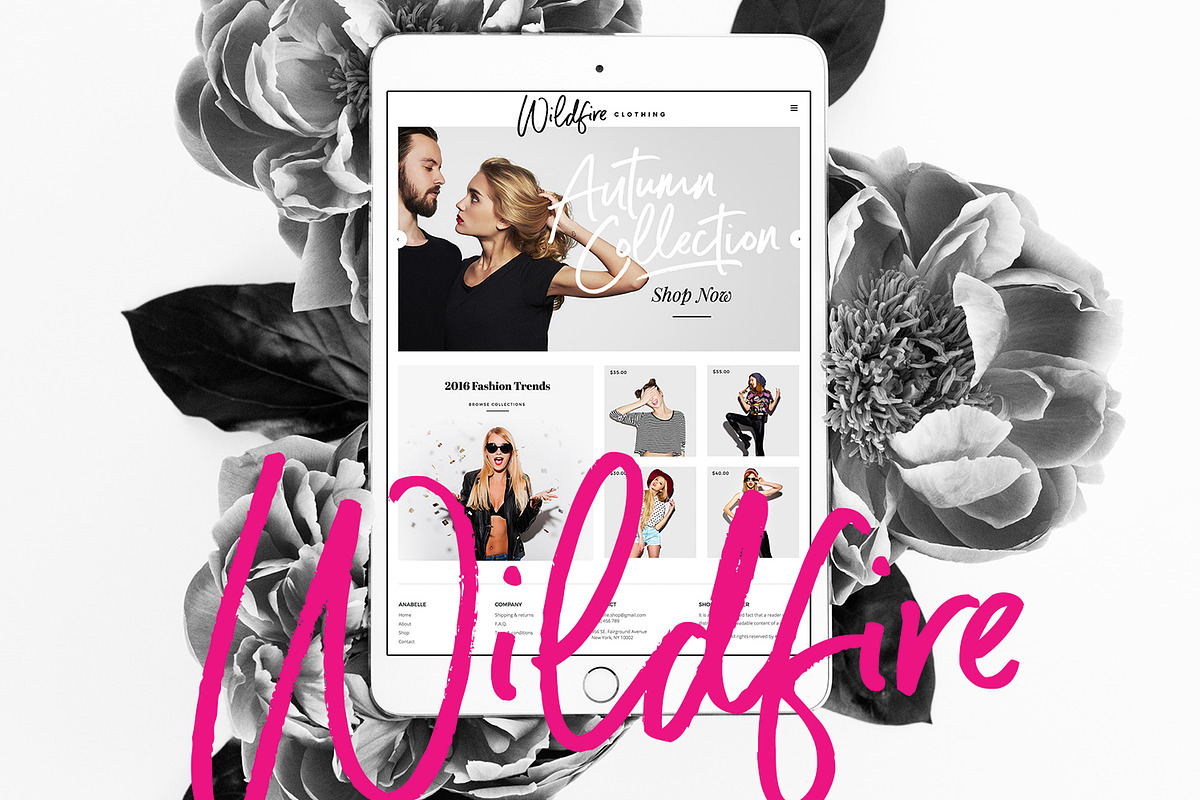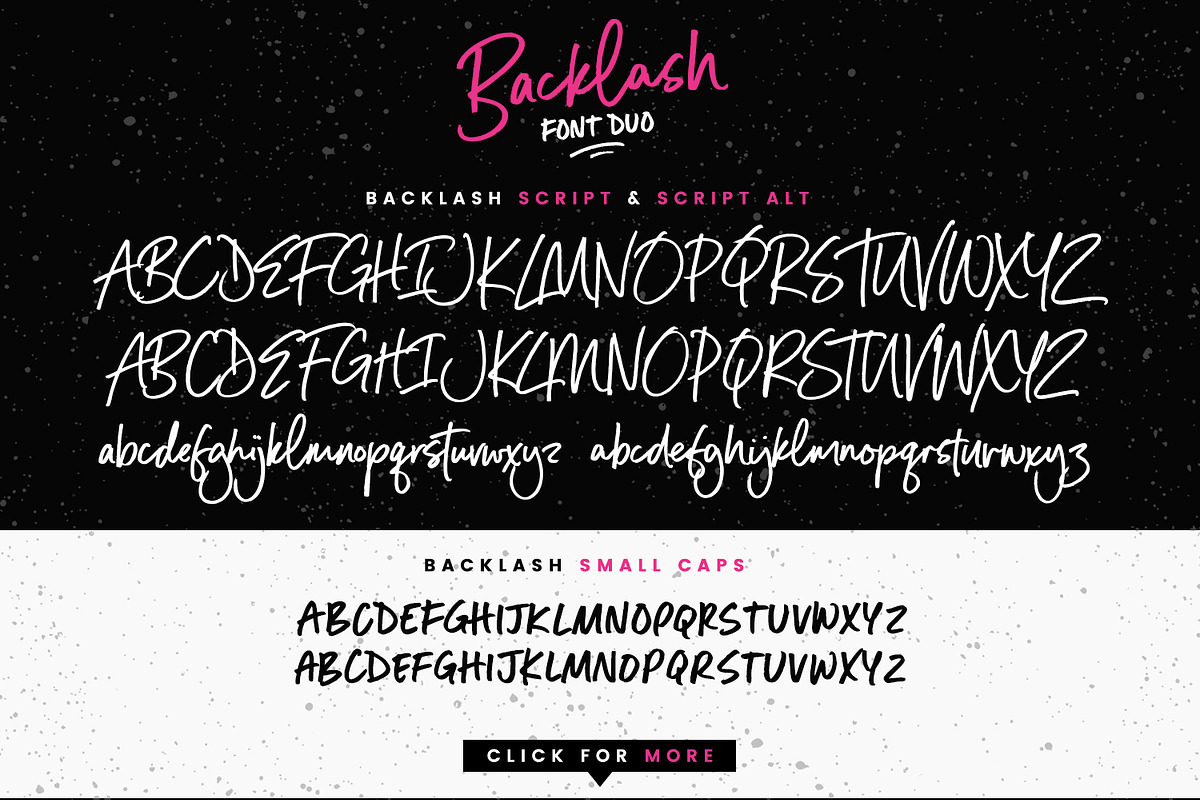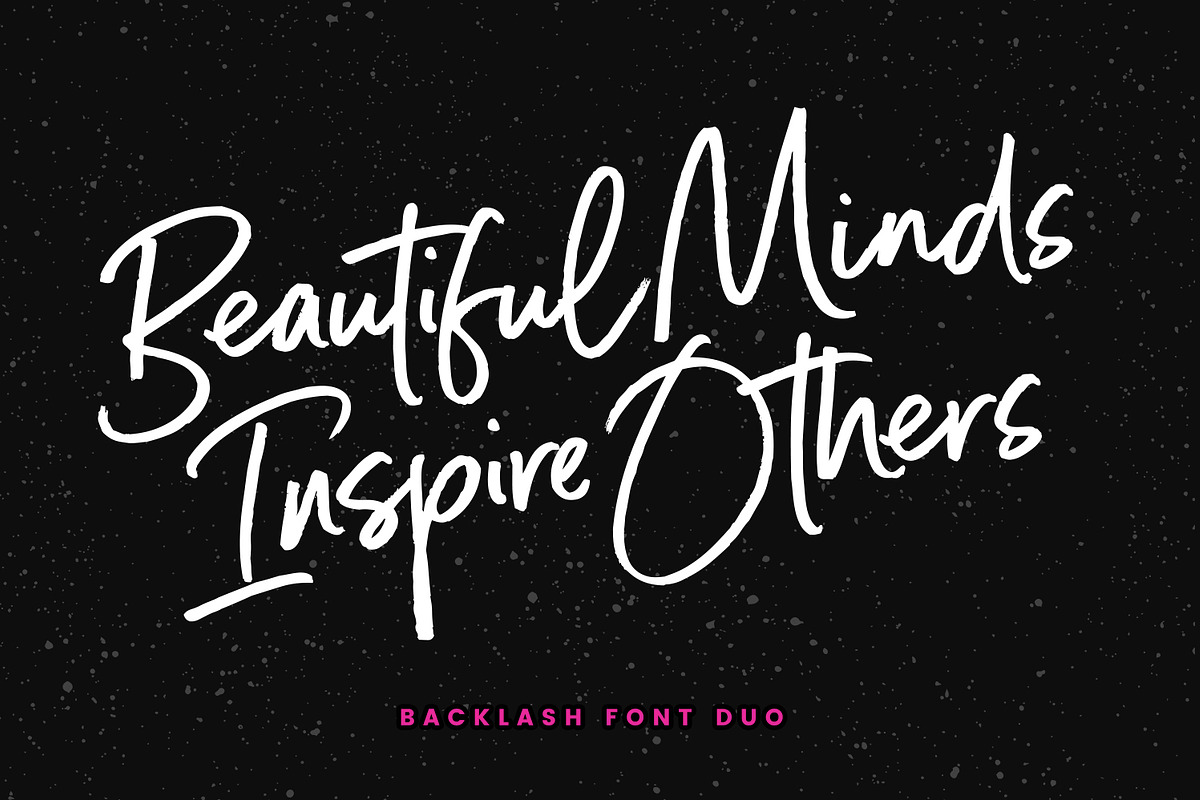
Backlash Font Duo
Introducing Backlash Font Duo! With a fancy script and a small-caps companion, this passionate pair of hand-drawn marker fonts is ideal for designing handwritten quotes, branding & logo projects, merchandise, social media posts and product packaging.
1. Backlash Script • A hand-drawn script font containing upper & lowercase characters, numerals and a large range of punctuation.
2. Backlash Script Alt • This is a second version of Backlash Script, with a completely new set of upper & lowercase characters. If you wanted to avoid letters looking the same each time to recreate a custom-made style, or try a different word shape, simply switch to this font for an additional layout option.
3. Backlash Small Caps • A hand-drawn sans font containing 2 sets of uppercase only characters, numerals and a large range of punctuation. Designed to be used as a supporting font to Backlash Script. You can switch between the 2 character sets simply by turning the caps-lock on & off.
Ligatures & Swashes; Backlash Script ligatures (double-letters) are also available for ll, tt & ee. These are only accessible via software with opentype capability or a glyphs panel. Four swashes are also available which can be accessed simply by typing any of the these characters in the Backlash Small Caps font; [ ] { }